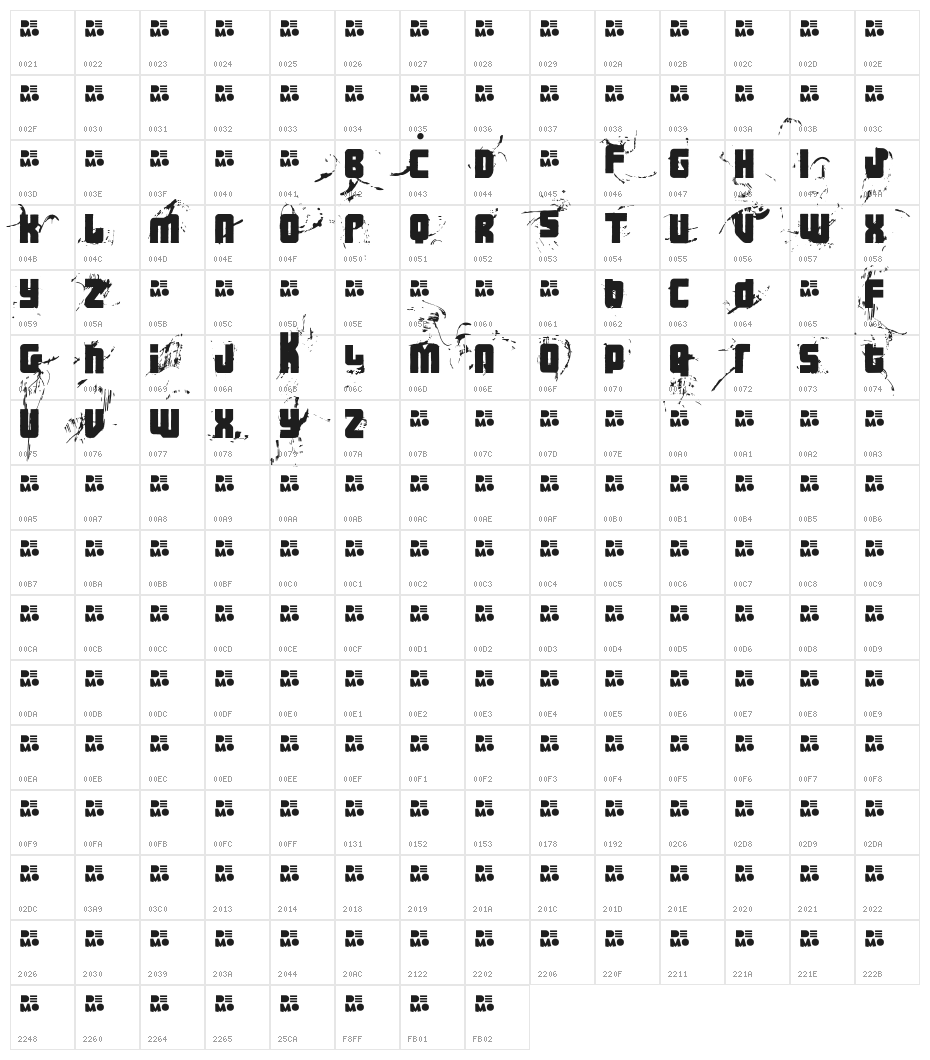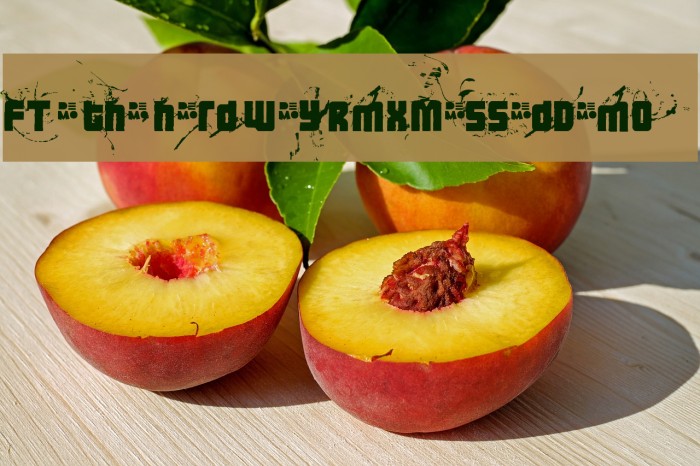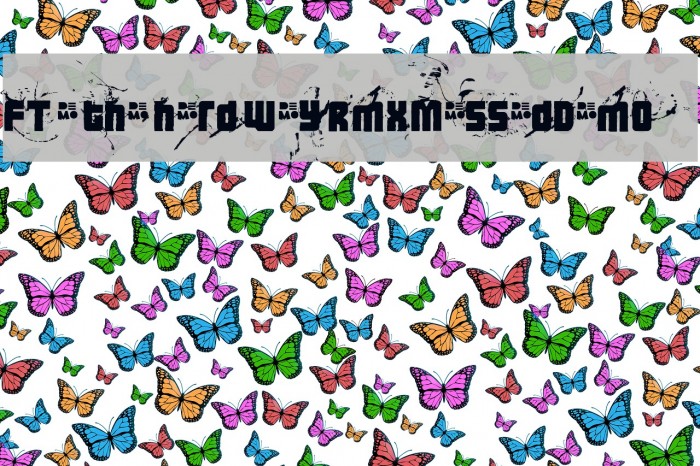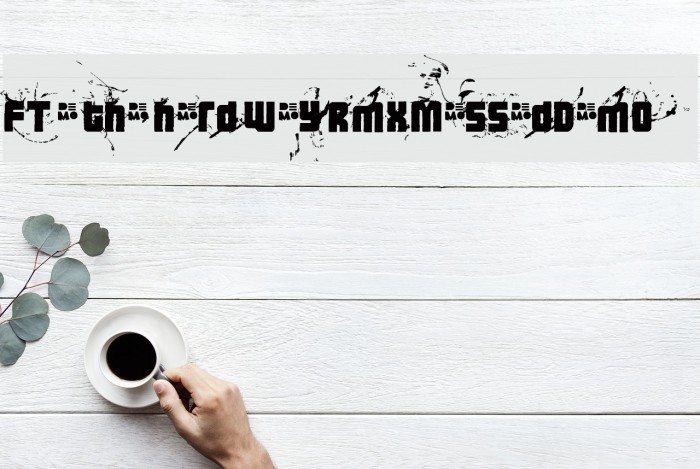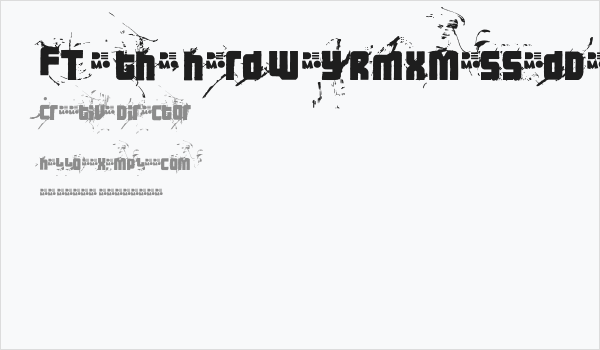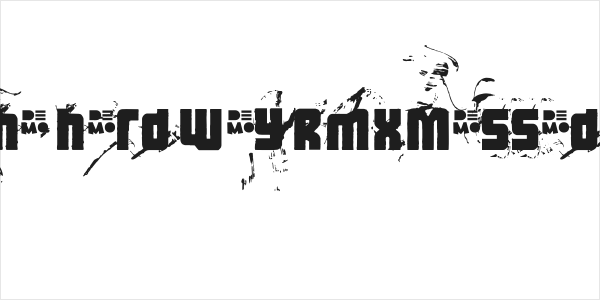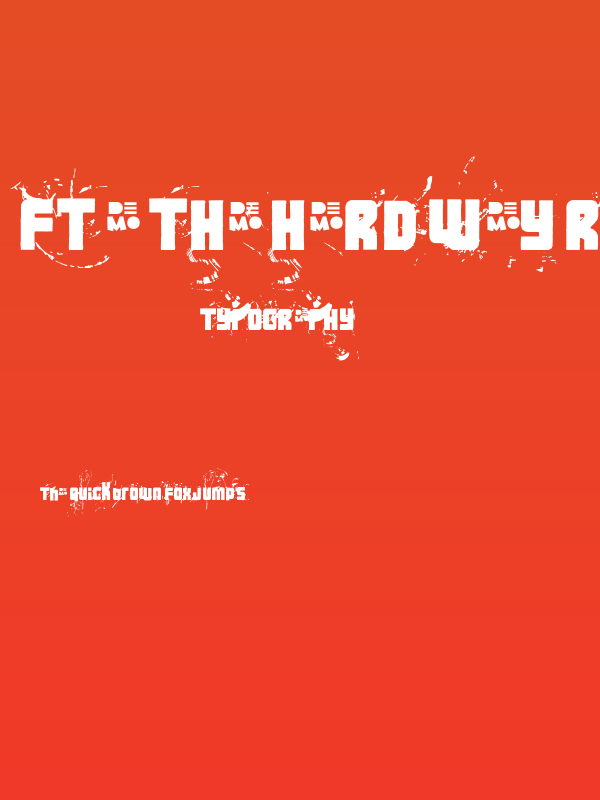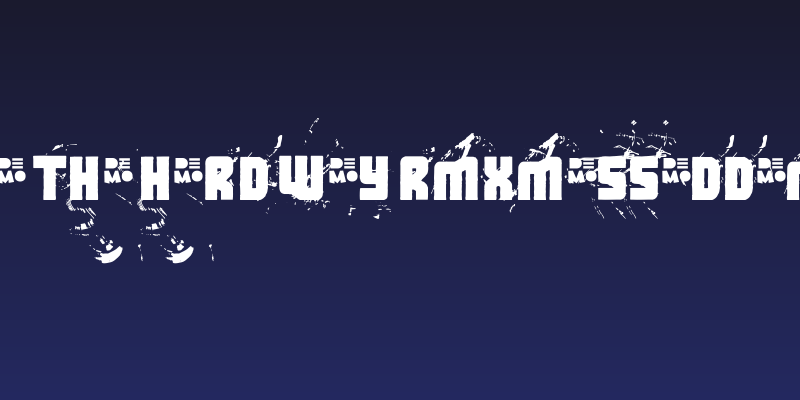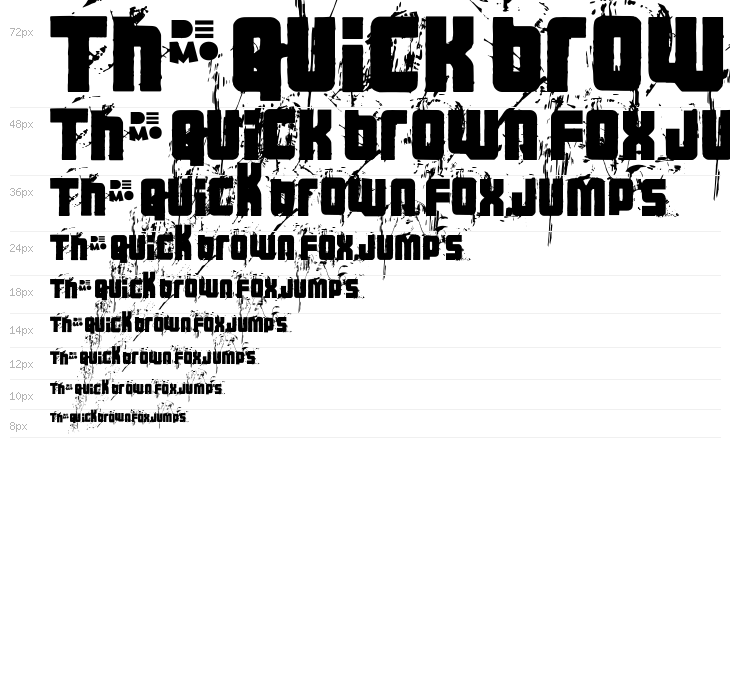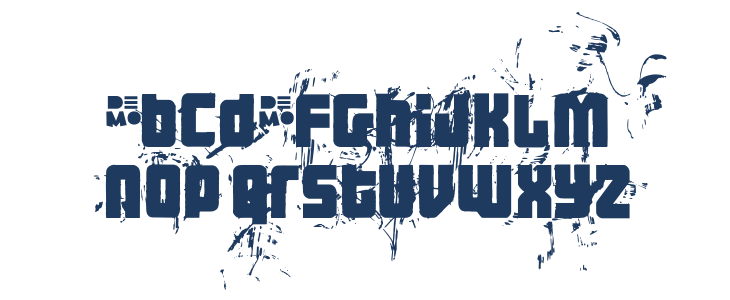
FT 3 the hard way RMXmessedDEMO Font
FT 3 the hard way RMXmessedDEMO Description
This font presents a bold and aggressive style with a distressed, grunge aesthetic. The characters are heavily stylized, featuring irregular edges and a rough texture that suggests a sense of chaos and energy. The uppercase letters are particularly striking, with thick strokes and a blocky appearance. The lowercase letters maintain the same rugged style, ensuring consistency across the typeface. Numbers and special characters are designed to match the overall theme, contributing to a cohesive look. This font is ideal for projects that require a strong, impactful visual presence.
| Overall Style | Grunge, Distressed, Bold |
| Proposed Projects | Ideal for music album covers, posters, streetwear branding, and any design needing a bold, edgy look. |